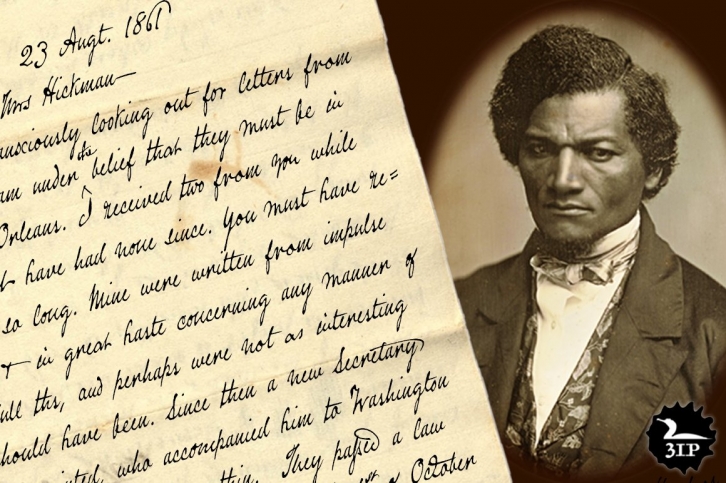
Frederick Douglass was born in a slave shack in Talbot County, Maryland, in either 1817 (the date he guessed) or 1818 (a date settled on later by historians). He went on to become a distinquished 19th century statesman, orator, and abolitionist leader known for his inspiring speeches and writings in support of social justice. Douglass happened also to have fine penmanship: he wrote swiftly and boldly in a handsome, somewhat condensed cursive. Douglass Pen is modeled chiefly after one of his written speeches recounting John Brown's raid on Harpers Ferry, Virginia, in 1859. It comes with more than 800 glyphs, including scores of ligatures, lining and old-style figures, cross-outs, swashes, inkblots, and support for Central/Eastern European languages.